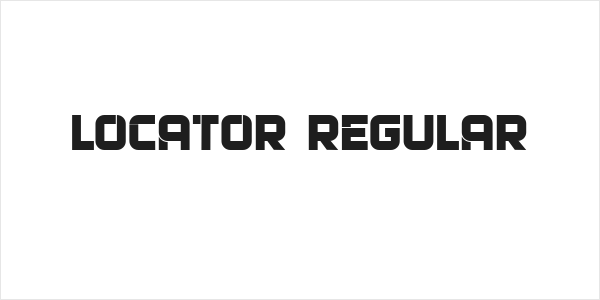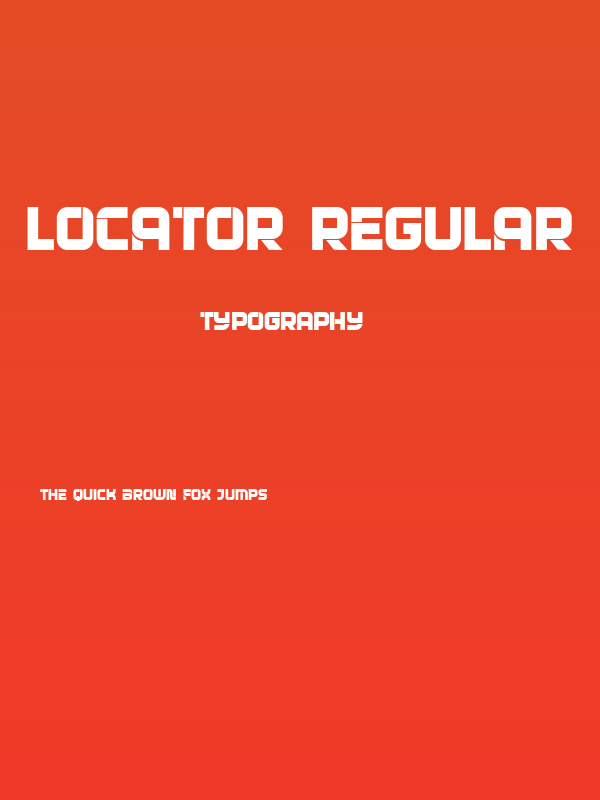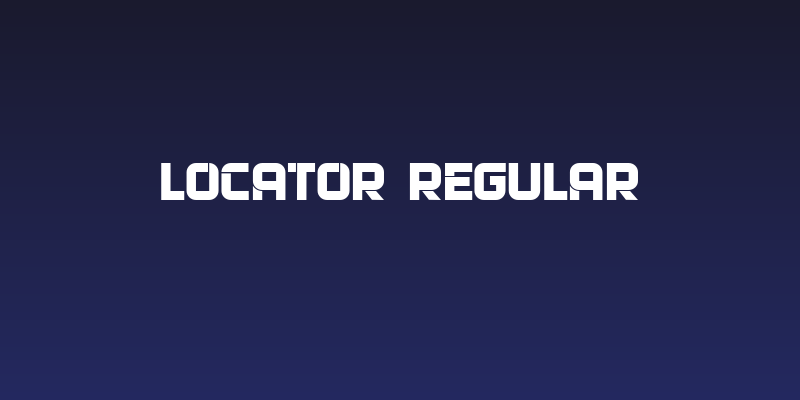
Locator Regular Font
Locator Regular Description
This font features a bold and geometric design with a futuristic flair. Each character is crafted with sharp angles and precise cuts, creating a sense of movement and modernity. The uppercase letters are particularly striking, with a uniform height and width that give them a block-like appearance. The numbers and special characters maintain this cohesive style, ensuring consistency across all text. The font's unique structure makes it ideal for projects that require a strong visual impact, such as branding, posters, or digital media. Its boldness and distinctiveness make it stand out, while the geometric shapes add a touch of sophistication.
| Proposed Projects | Ideal for branding, posters, digital media, and any project needing a strong visual impact. |